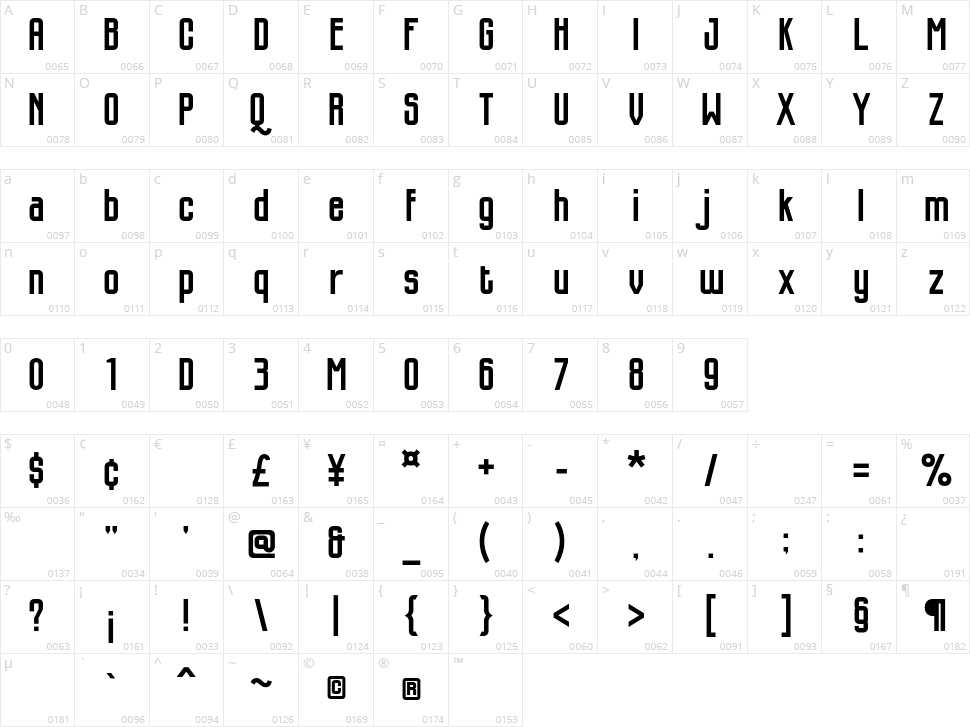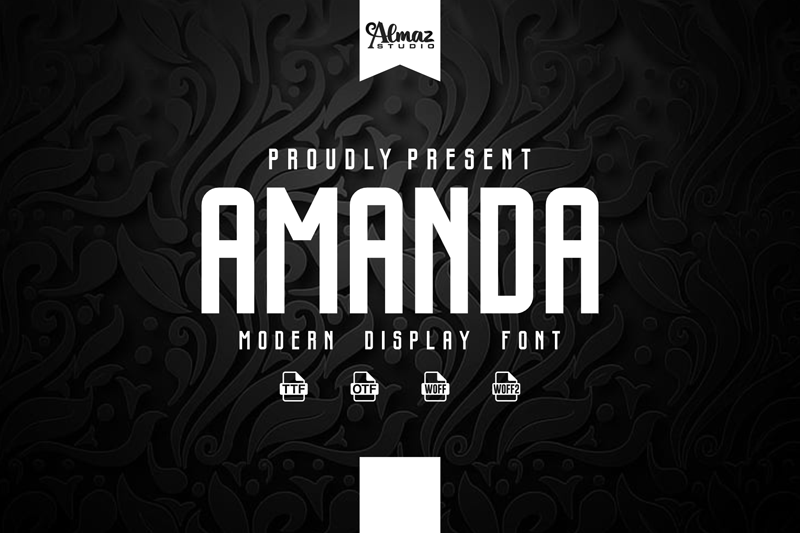
Amanda
Note of the author Amanda is a minimalist display font with clean lines and sharp edges that make it a perfect sans for weddings, logos, quotes, print, signage, and more!
Designer Name: Almaz Studio